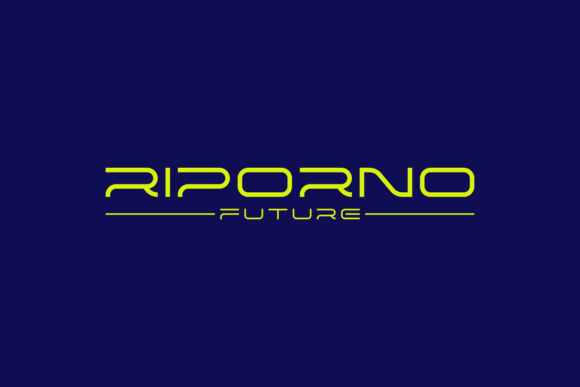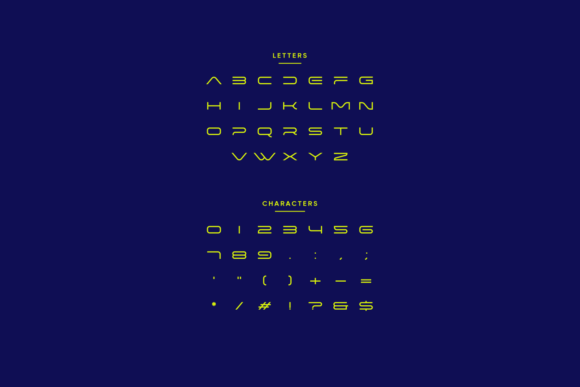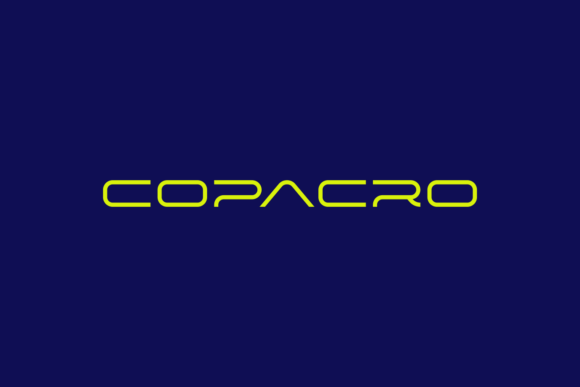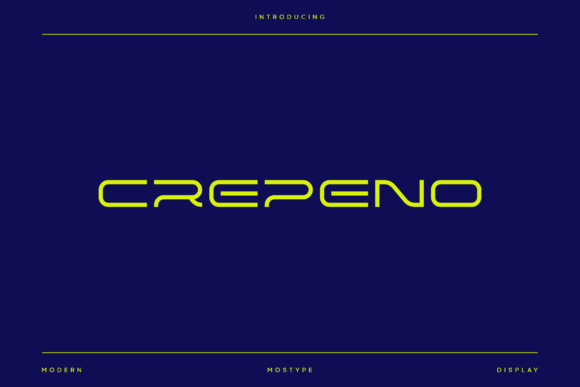
Introducing Crepeno Font: The Modern Futuristic Typeface for Bold Visuals
In the world of typography, a font can make or break the visual identity of a brand, product, or creative project. For designers and crafters seeking a modern, futuristic aesthetic, Crepeno font emerges as a game-changer. This sleek, modern display font is specifically designed to deliver bold, high-impact visuals with a clean, futuristic look that elevates any project to new heights.
The Design Philosophy Behind Crepeno
Crepeno’s design is rooted in a deep understanding of what makes a font both visually striking and functionally effective. Its smooth, geometric letterforms and streamlined curves achieve a perfect balance between elegance and innovation. This balance ensures that Crepeno stands out in a crowded visual landscape, making it an ideal choice for branding, headlines, posters, and digital interfaces that demand a contemporary edge.
Key Features of Crepeno Font
- Minimalist Shapes: The font’s minimalist shapes convey a sense of precision and forward-thinking style, aligning perfectly with modern design sensibilities.
- Generous Spacing: Crepeno’s design includes generous spacing, which significantly enhances readability even at larger scales. This feature is particularly beneficial for headlines, titles, and digital displays where clarity is paramount.
- Unique Character Design: Crepeno brings a distinctive personality to any project. Its unique character design makes it versatile enough for tech-oriented, fashion-forward, or creative branding projects, ensuring that your work stands out with a refined, modern look.
Applications of Crepeno Font
Crepeno’s versatility is one of its most compelling attributes. This font excels in a variety of applications, including:
- Branding: Crepeno can serve as a cornerstone for brand identity, offering a modern and sophisticated look that can define a brand’s visual presence.
- Headlines and Posters: For print materials, Crepeno’s bold and futuristic aesthetic makes it perfect for grabbing attention and conveying messages with impact.
- Digital Interfaces: In digital spaces, Crepeno shines by providing a clean and readable experience across various devices and screen sizes.
Why Choose Crepeno Font?
For designers and crafters, the choice of font can significantly influence the success of a project. Here are a few reasons why Crepeno stands out:
- Contemporary Edge: Crepeno provides a contemporary edge that is hard to achieve with more traditional fonts. Its modern aesthetic ensures that your work feels current and relevant.
- Versatility: The font’s versatility means it can be used across a wide range of projects, from tech startups to fashion brands, and from print materials to digital platforms.
- Readability and Aesthetic Appeal: Crepeno strikes an excellent balance between aesthetic appeal and readability, making it suitable for both display purposes and longer texts.
Crepeno font represents a significant advancement in modern typography, offering designers and crafters a tool that combines futuristic aesthetics with functional design. Its sleek lines, geometric shapes, and balanced curves create a visually compelling and versatile typeface suitable for a myriad of applications. Whether you’re working on a branding project, creating bold headlines, or designing digital interfaces, Crepeno provides the perfect blend of style, readability, and innovation. Embrace the future of typography with Crepeno, and elevate your designs to new heights of sophistication and impact.